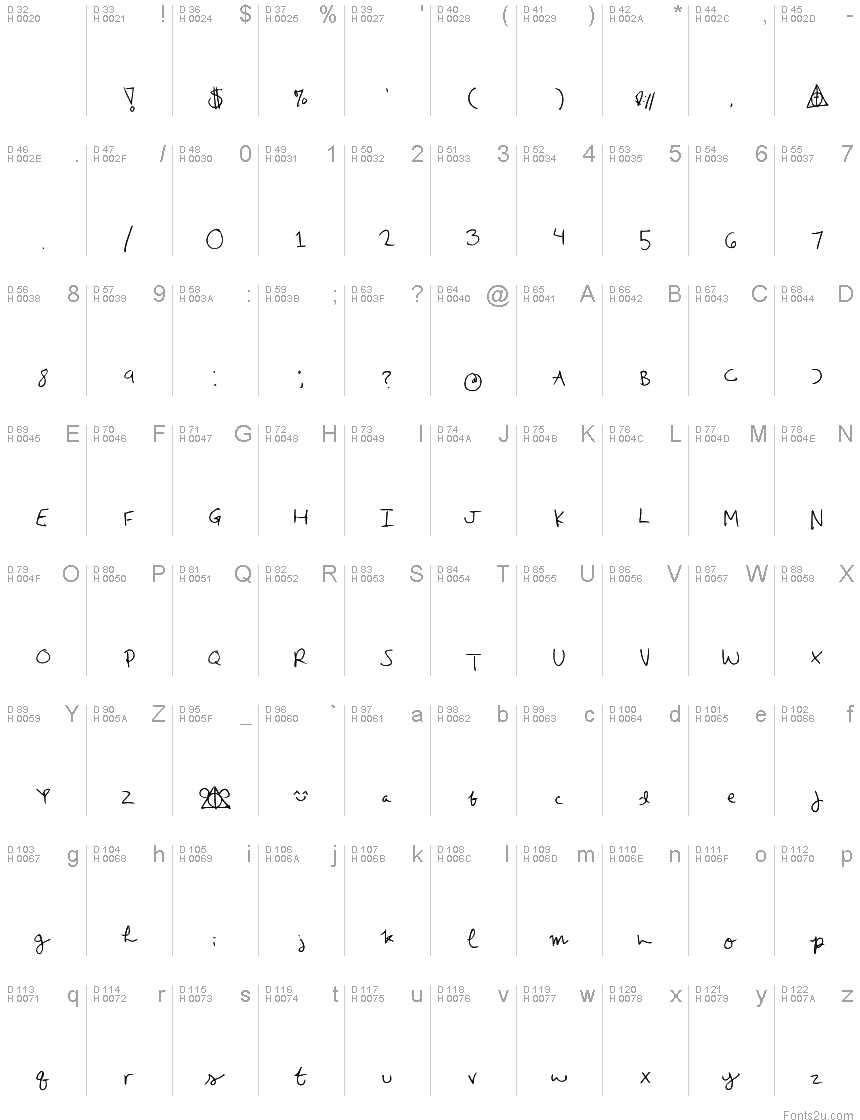
Emilee's Medium
My first font ever! Yay! I know stuff is weird, like the D's are cut off a bit on the left, but hey. Hopefully I'll be able to take some more time on future fonts. (This one took me a whole five minutes. :) )